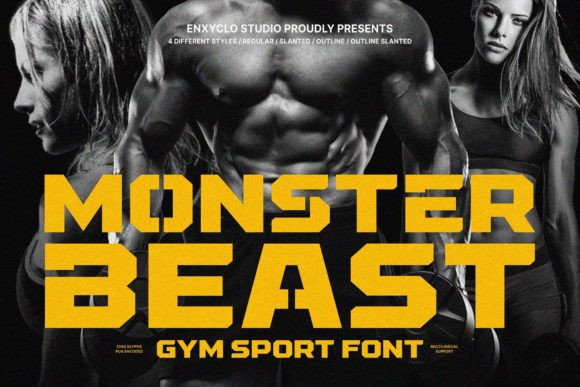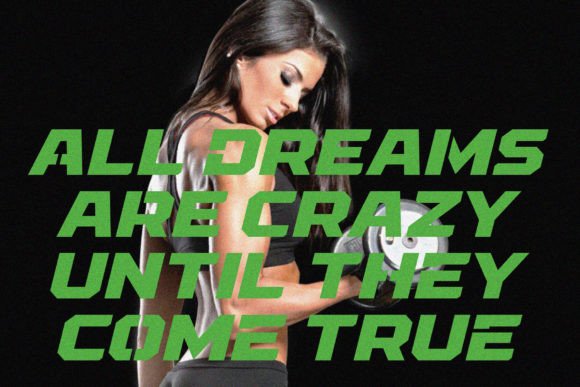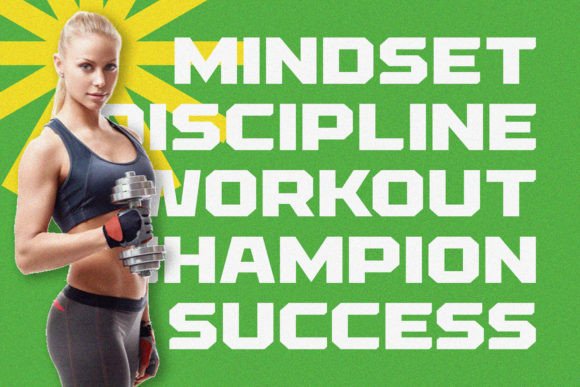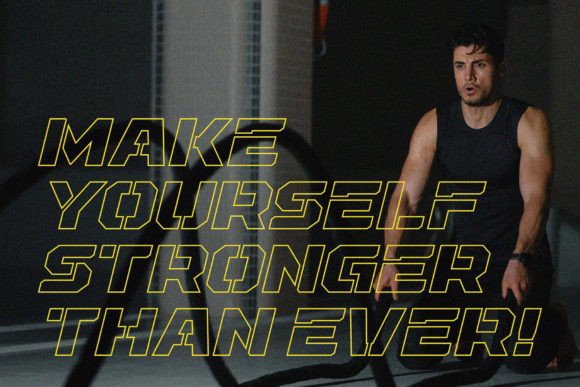
Monster Beast Font: A Bold Display Font for Sport Logos!
About the Monster Beast Font
Presenting Monster Beast Font, a unique and stylish typeface that will make your work stand out. MONSTER BEAST is a gym sports font. Masterfully designed to become a true favorite, this font has the potential to bring each of your creative ideas to the highest level! It was purposely crafted to be used in large point sizes, although it doesn’t lose its magic in small point sizes. It is perfect for headlines, billboards, magazines, websites, titles, posters, branding, and logos. No matter the topic, this font will be an incredible asset to your fonts’ library, as it has the potential to elevate any creation. With this beautiful font, absolutely you can make your project stand out from the rest.
Monster Beast Font Usage Examples
Monster Beast Font Example